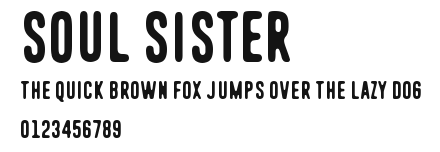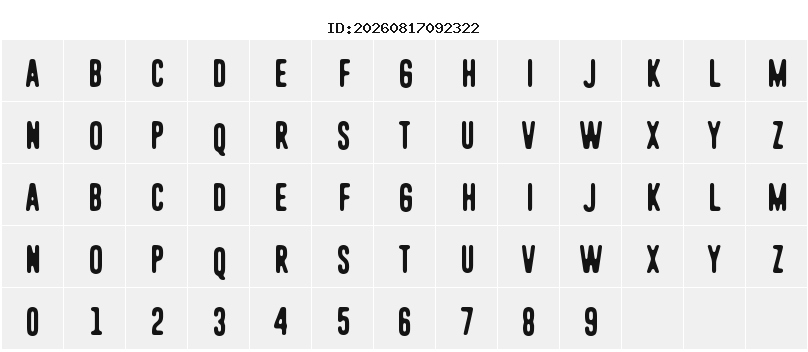
Soul Sister Preview
• Font Name: Soul Sister
• Full Font Name: Soul Sister
• Designer: junkohanhero
About Soul Sister.ttf
Soul Sister.ttf is a modern, elegant sans-serif font designed for ultimate readability and visual harmony. Perfect for branding, headlines, web design, and print materials.